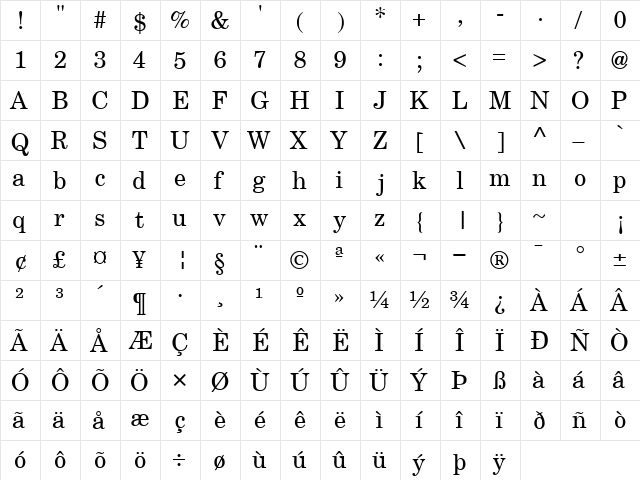
CenturySchoolbookRepriseSSK Regular
Design Context for CenturySchoolbookRepriseSSK Typeface
CenturySchoolbookRepriseSSK takes a measured approach to typography — its balanced proportions and neutral character make it a reliable workhorse for both digital and print work.